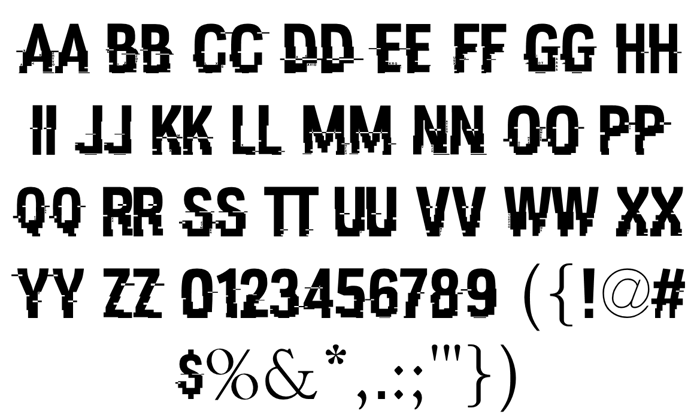
HACKED Font
This font is a recreation of the Watch Dogs (Ubisoft game) logo but you can use it for any purpose. The licence is Creative Commons Attribution : commercial use is ok, you have to credit the font "Hacked" and its author "David Libeau". Thanks! Don't forget to donate if you like the font!